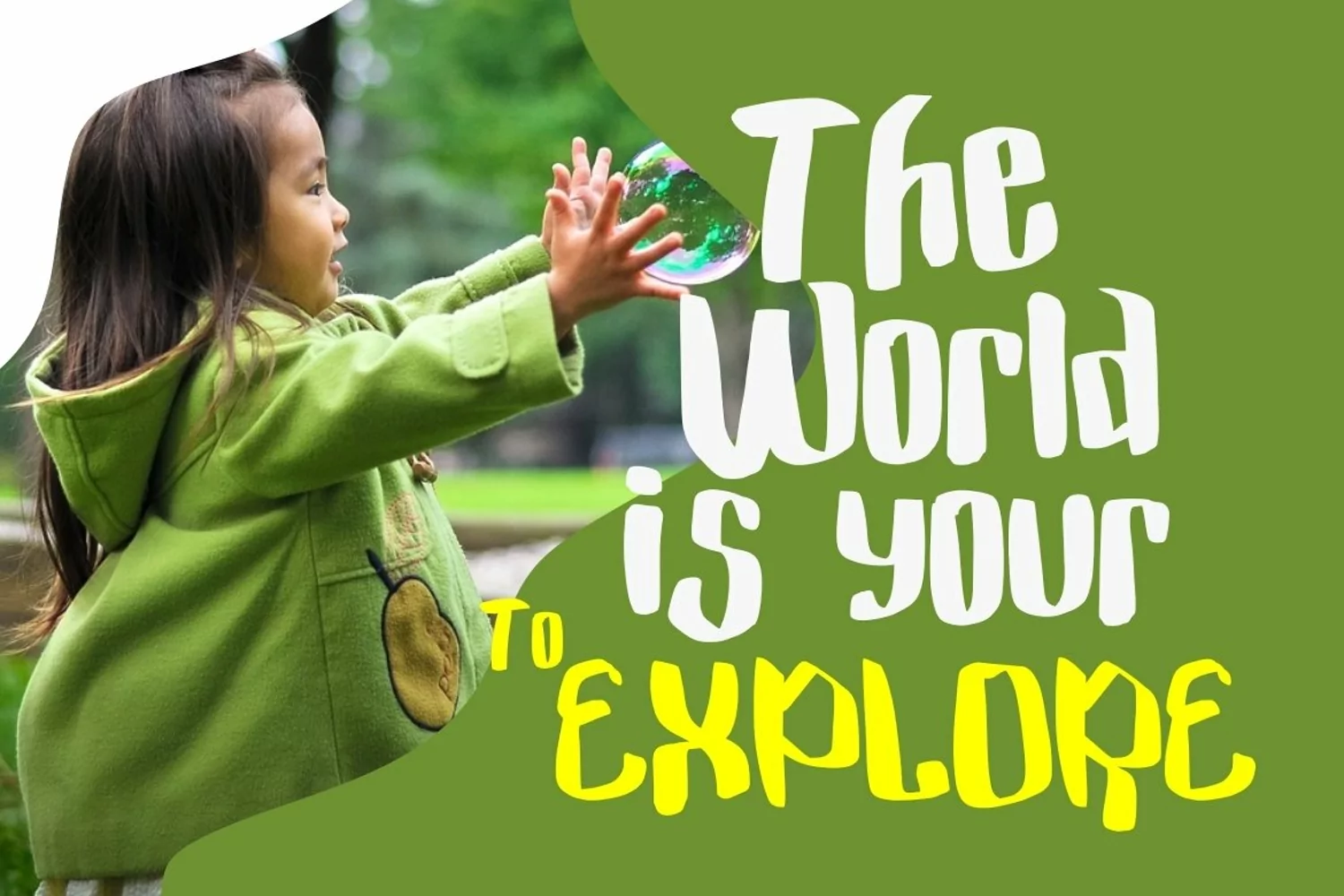
Hi Panda Font
Hi Panda is a clean and playful display font. This collection font is perfect for gift products like a shirts, flyer, logo or greeting cards.
Also included is an some alternate characters.